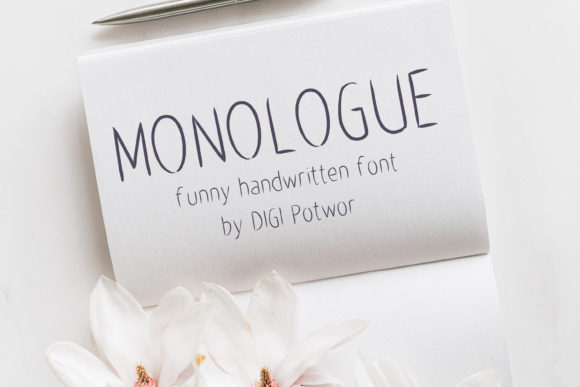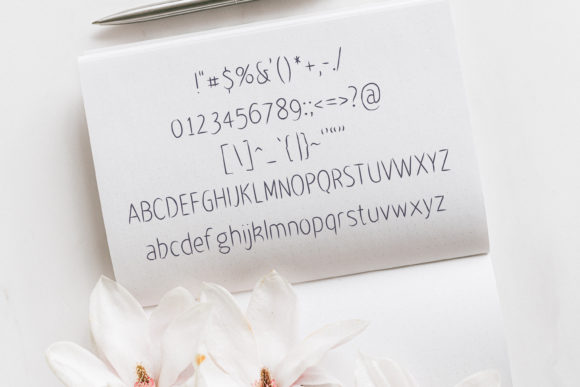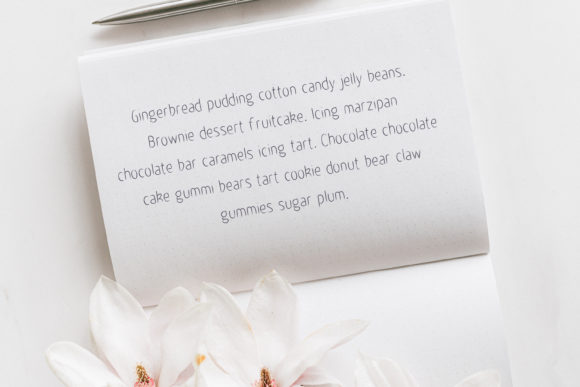
Monologue Font
About Monologue Font
Monologue is a simple and neat handwritten font. Elegant and distinct, this font is the perfect choice for each of your creative ideas. Fall in love with its unique feel!